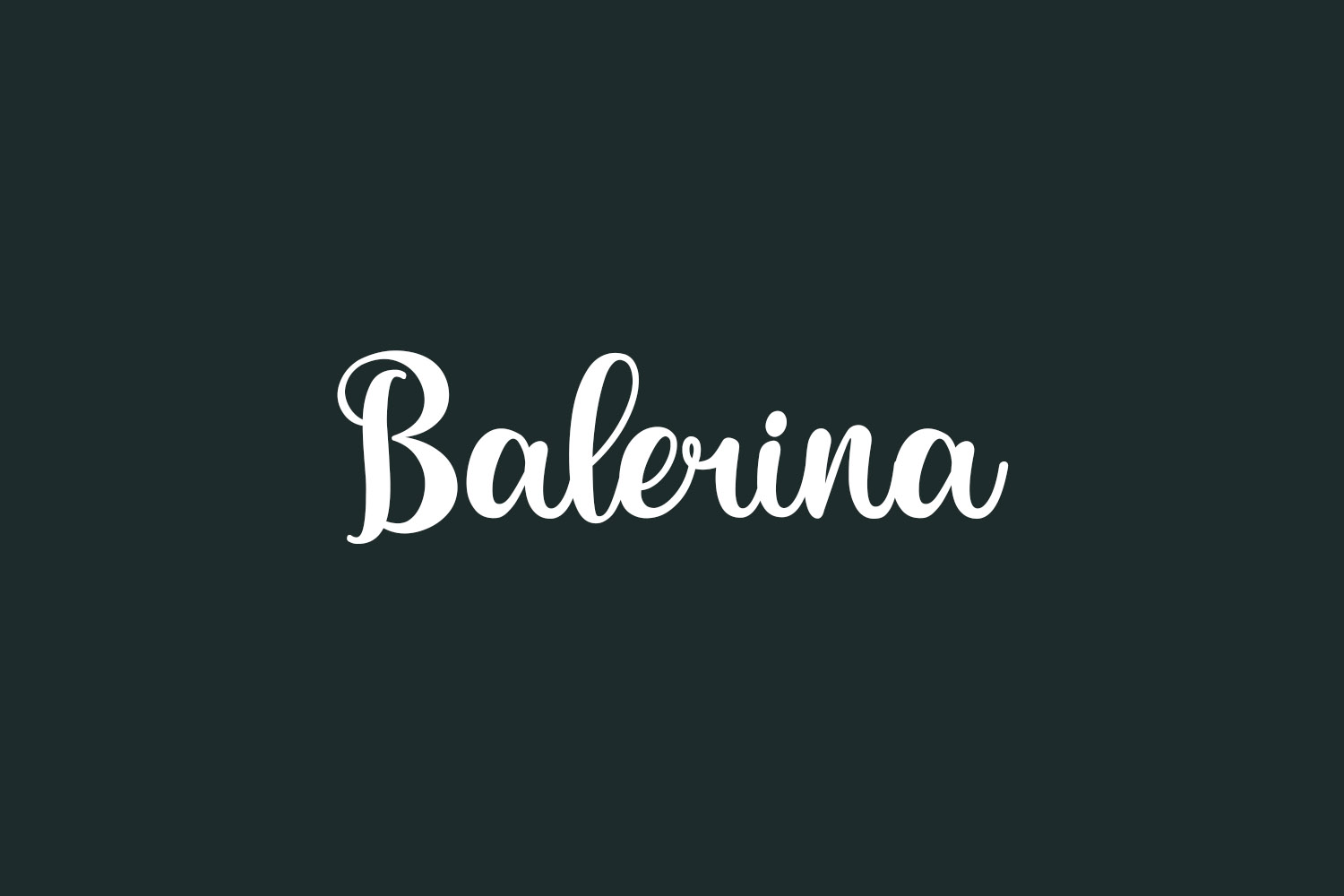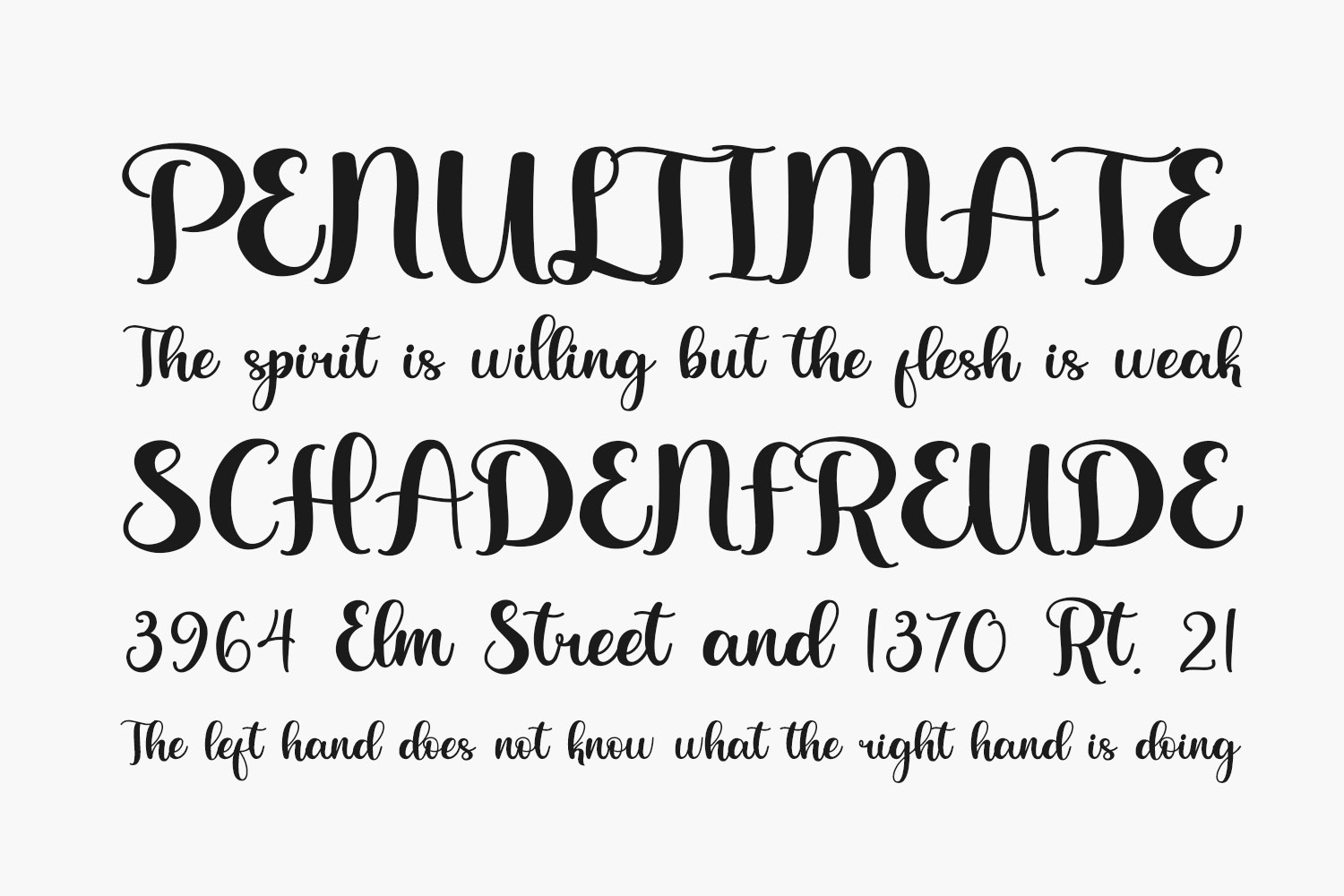
Balerina Free Font is an elegant and stylish handwritten font, carefully handcrafted to become a true favorite. It can be used for various purposes such as logos, wedding invitations, headings, t-shirts, letterhead, signage, labels, news, posters, badges and so much more. Balerina Free Font was designed by HansCo and is free for personal use only. Please purchase the full version for commercial use.